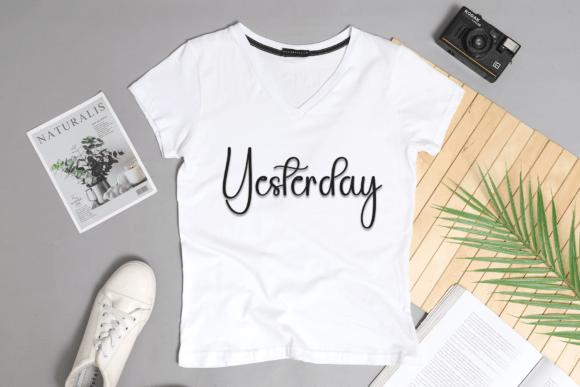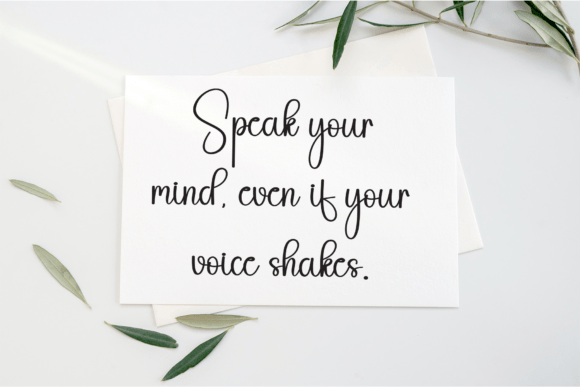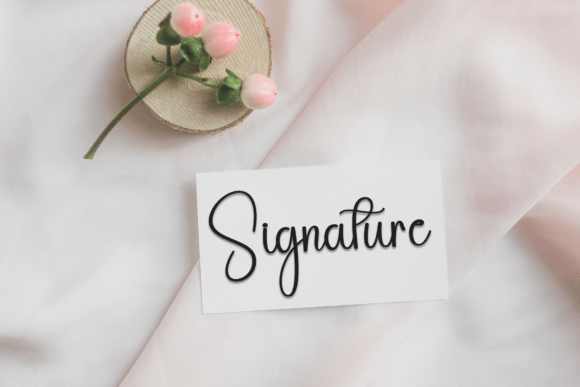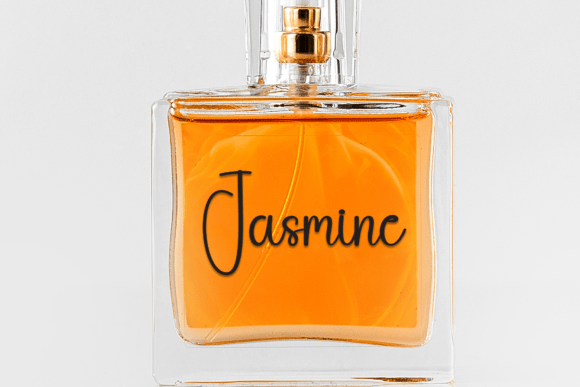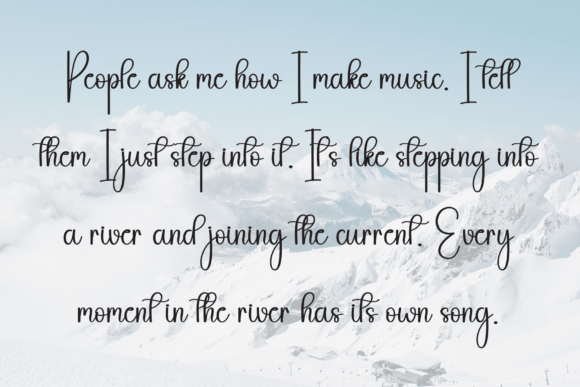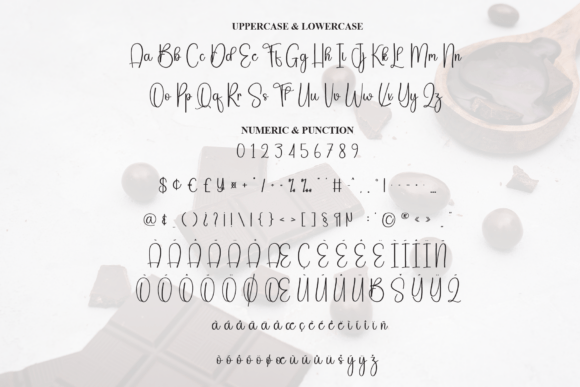
Introducing Chocolate Font: Elevate Your Designs with Artistic Flair and Contemporary Elegance
Are you on the hunt for a font that adds a touch of sophistication and creativity to your designs? Look no further than Chocolate Font, a stylish script font that embodies the perfect blend of artistic flair and modern elegance. With its fluid brush strokes, dynamic curves, and expressive letterforms, Chocolate Font is the ideal choice for designers and crafters seeking to make a lasting impression.
The Essence of Hand-Painted Calligraphy with a Modern Twist
Chocolate Font is inspired by the art of hand-painted calligraphy, but with a contemporary spin. The font’s fluid brush strokes and dynamic curves give it a natural, organic feel that’s reminiscent of hand-painted letters. However, its modern design ensures that it remains versatile and adaptable, making it suitable for a wide range of applications.
Whether you’re a designer, crafter, or simply someone who loves to dabble in creative projects, Chocolate Font is an excellent addition to your font library. Its versatility makes it ideal for:
- Logos: Add a touch of sophistication and elegance to your brand’s logo with Chocolate Font.
- Invitations: Create beautiful, eye-catching invitations for special occasions, such as weddings, birthdays, and baby showers.
- Packaging: Elevate your product packaging with a font that exudes luxury and refinement.
- Social Media Graphics: Add a creative and sophisticated touch to your social media graphics, such as Instagram posts, Facebook covers, and Twitter headers.
Key Features of Chocolate Font
So, what sets Chocolate Font apart from other fonts? Here are some of its key features:
- Fluid Brush Strokes: The font’s fluid brush strokes give it a natural, hand-painted feel.
- Dynamic Curves: The dynamic curves in Chocolate Font add a touch of elegance and sophistication.
- Expressive Letterforms: Each letterform in the font is uniquely designed to convey a sense of creativity and artistic flair.
- Vibrant Character: Chocolate Font has a vibrant character that’s sure to capture the attention of your audience.
Why Choose Chocolate Font?
With so many fonts available, why choose Chocolate Font? Here are just a few reasons:
- Unique and Creative: Chocolate Font is a one-of-a-kind font that will set your designs apart from the rest.
- Versatile: The font is suitable for a wide range of applications, from logos and invitations to packaging and social media graphics.
- Elegant and Sophisticated: Chocolate Font exudes elegance and sophistication, making it perfect for designs that require a touch of luxury.
In conclusion, Chocolate Font is a stylish script font that offers the perfect blend of artistic flair and contemporary elegance. With its fluid brush strokes, dynamic curves, and expressive letterforms, it’s the ideal choice for designers and crafters seeking to add a touch of sophistication and creativity to their designs. Whether you’re working on a logo, invitation, packaging, or social media graphic, Chocolate Font is sure to deliver both visual impact and versatility.